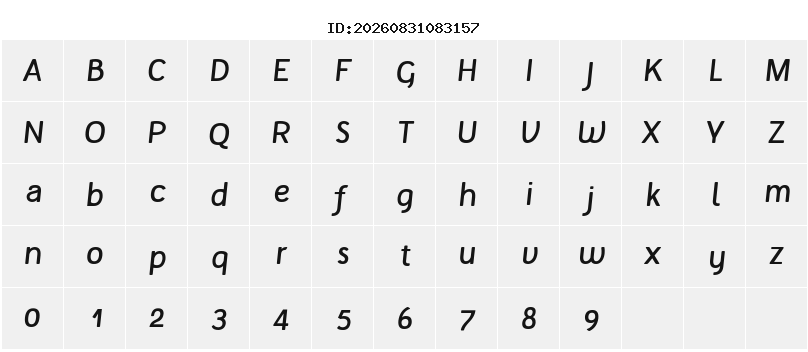
Tellural Alt Preview
• Font Name: Tellural Alt
• Font Style: Italique
• Font ID: Tellural Alt Italic:Version 1.00
• Full Font Name: Tellural Alt Italic
• Version: Version 1.00 April 21, 2012, initial release
• PostScript Name: TelluralAlt-Italic
• Character Count: 686
• Designer: Lauren Thompson
About Tellural Alt.ttf
Tellural Alt.ttf is a modern, elegant sans-serif font designed for ultimate readability and visual harmony. Perfect for branding, headlines, web design, and print materials.